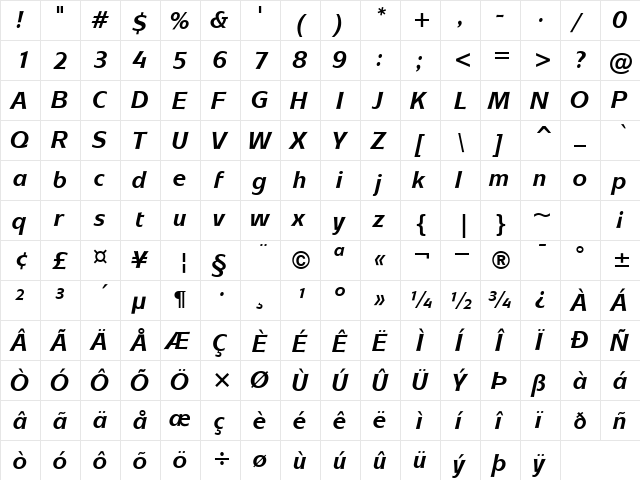
ITCMixage BoldItalic
Design Context for ITCMixage Typeface
ITCMixage takes a measured approach to typography — its balanced proportions and neutral character make it a reliable workhorse for both digital and print work. The dynamic lean of this cut emphasises speed and emphasis in any layout. The heavy weight commands attention and anchors typographic hierarchies.
Pro Tip: Use ITCMixage for emphasis, pull quotes, and subheadings where its slanted energy can add rhythm to the layout.